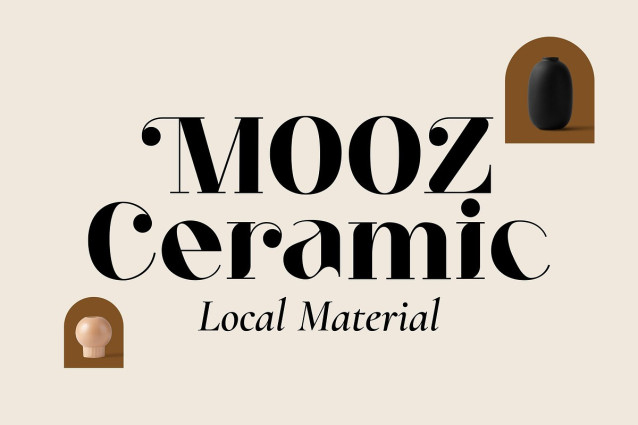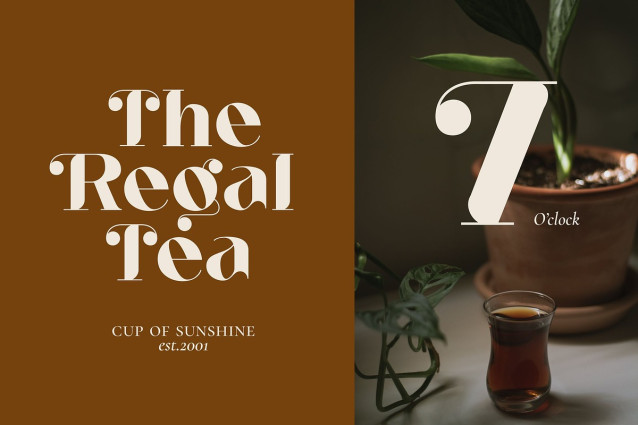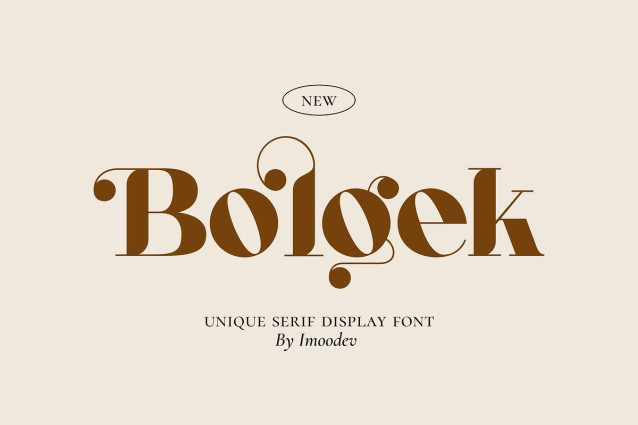
Bolgek Font
Bolgek Font is a sophisticated serif display font featuring exquisite swirl details. This font of Bolgek evokes a subtle old-world charm reminiscent of Art Nouveau flourishes, while also incorporating contemporary influences. The pronounced contrast between thick and thin strokes imparts a refined, high-contrast serif appearance.
Each character radiates a sense of grandeur, making Bolgek especially well-suited for headlines, editorial titles, magazines, posters, artistic book covers, logos, and promotional materials. It is particularly ideal for branding in luxury, fashion, or beauty industries seeking to introduce a touch of dramatic elegance.
Balanced proportions and distinctive swashes, Bolgek combines elegance and artistic flair, resulting in a versatile typeface that commands attention across both digital and print media.